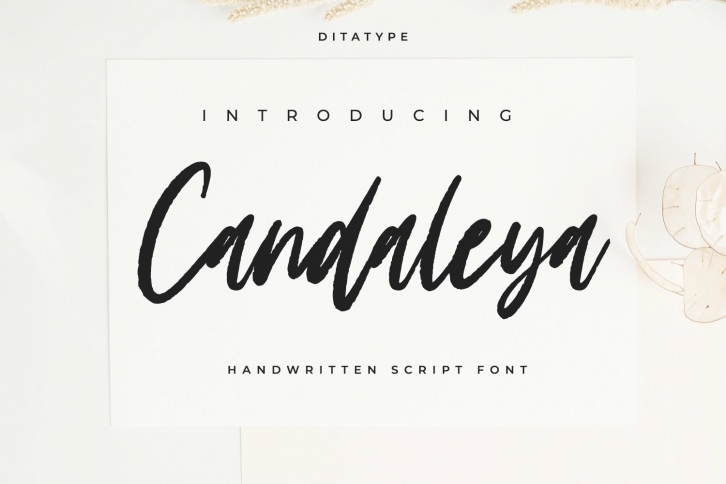
Candaleya is a trendy and unique font with an authentic style. It was designed by Dita Type and it's a great choice for creative people who need such a font. It was released on July 28, 2020 and the file size is 2.1 MB. Candaleya will add an organic vibe to any design idea!